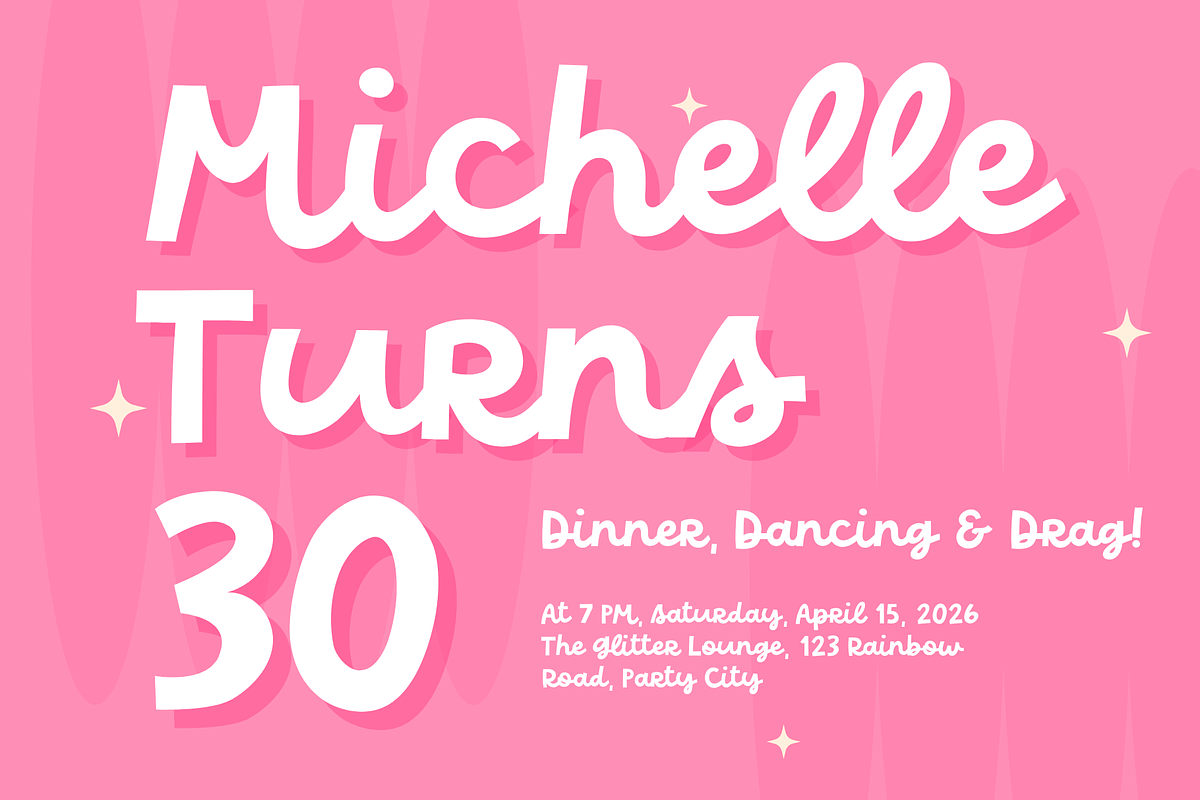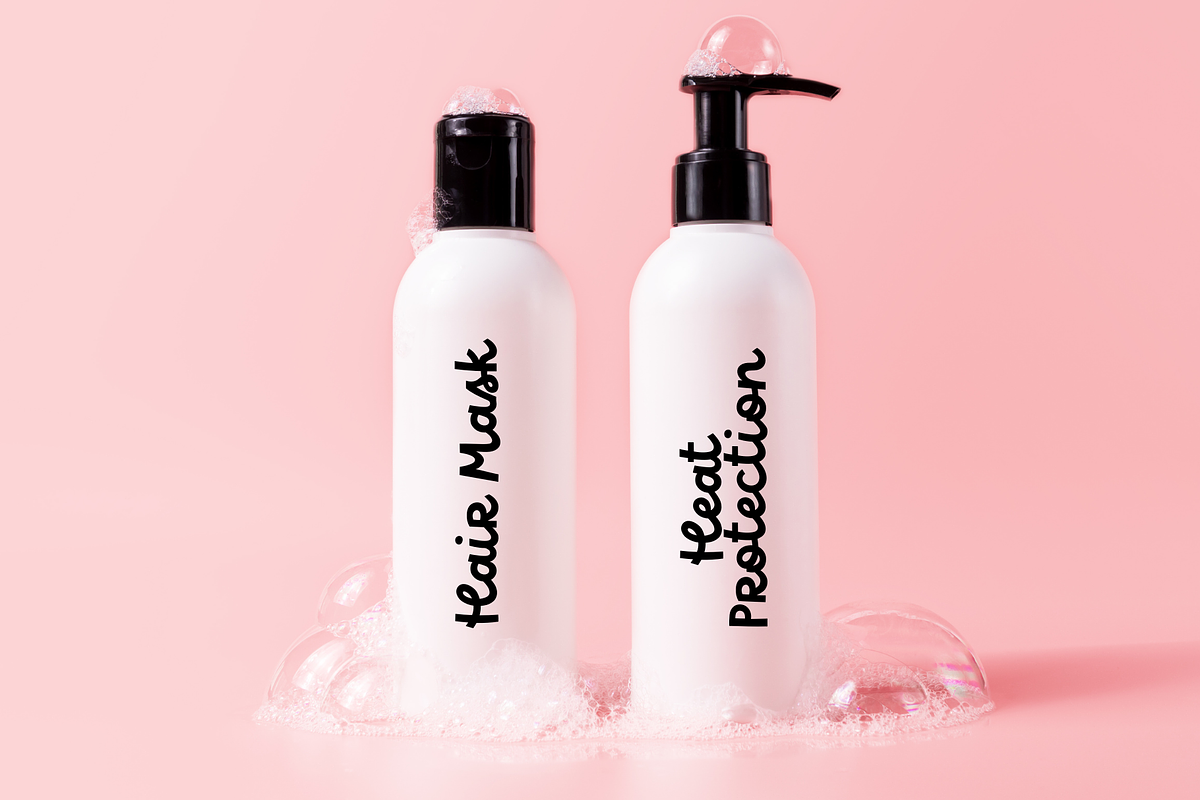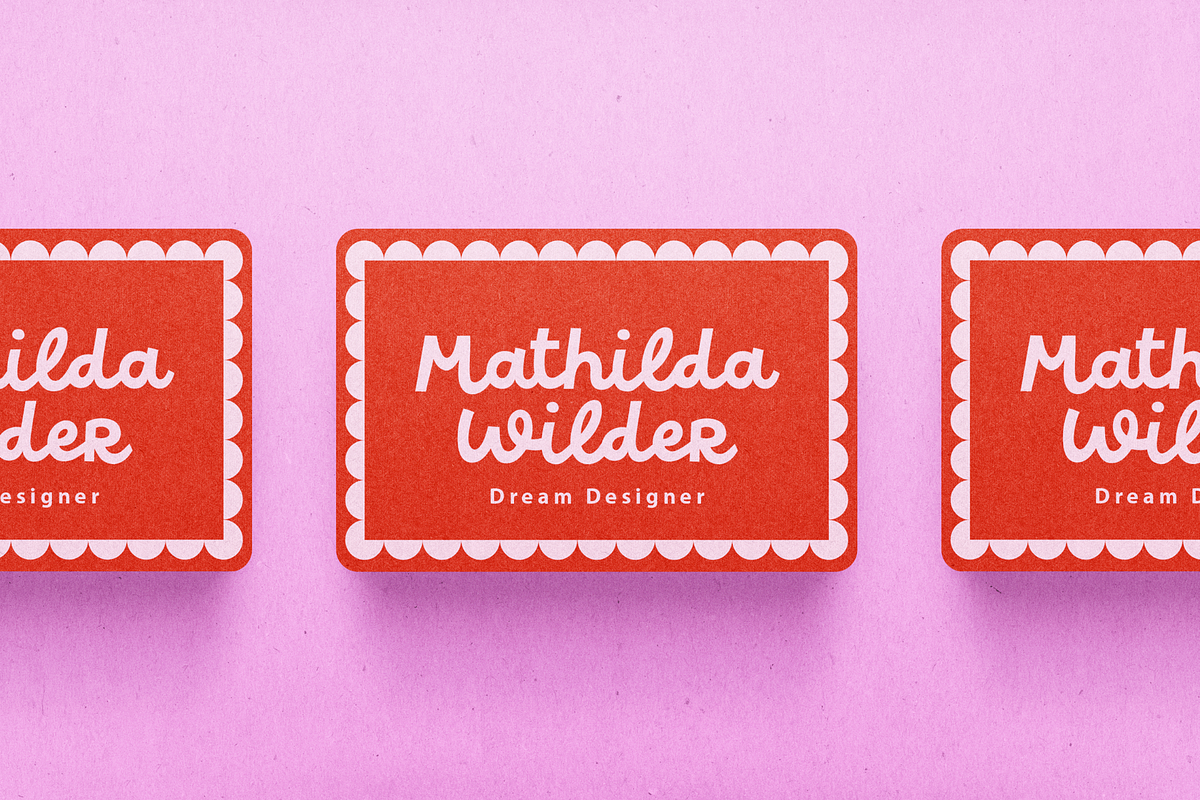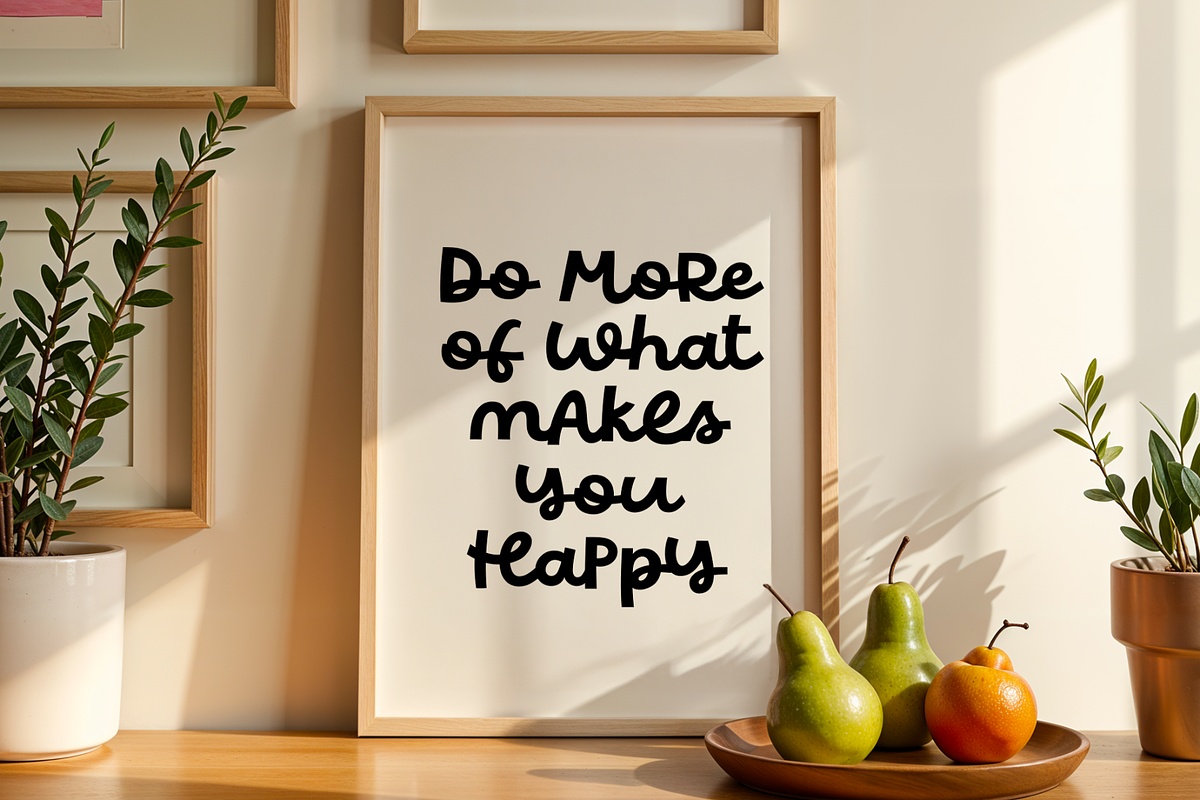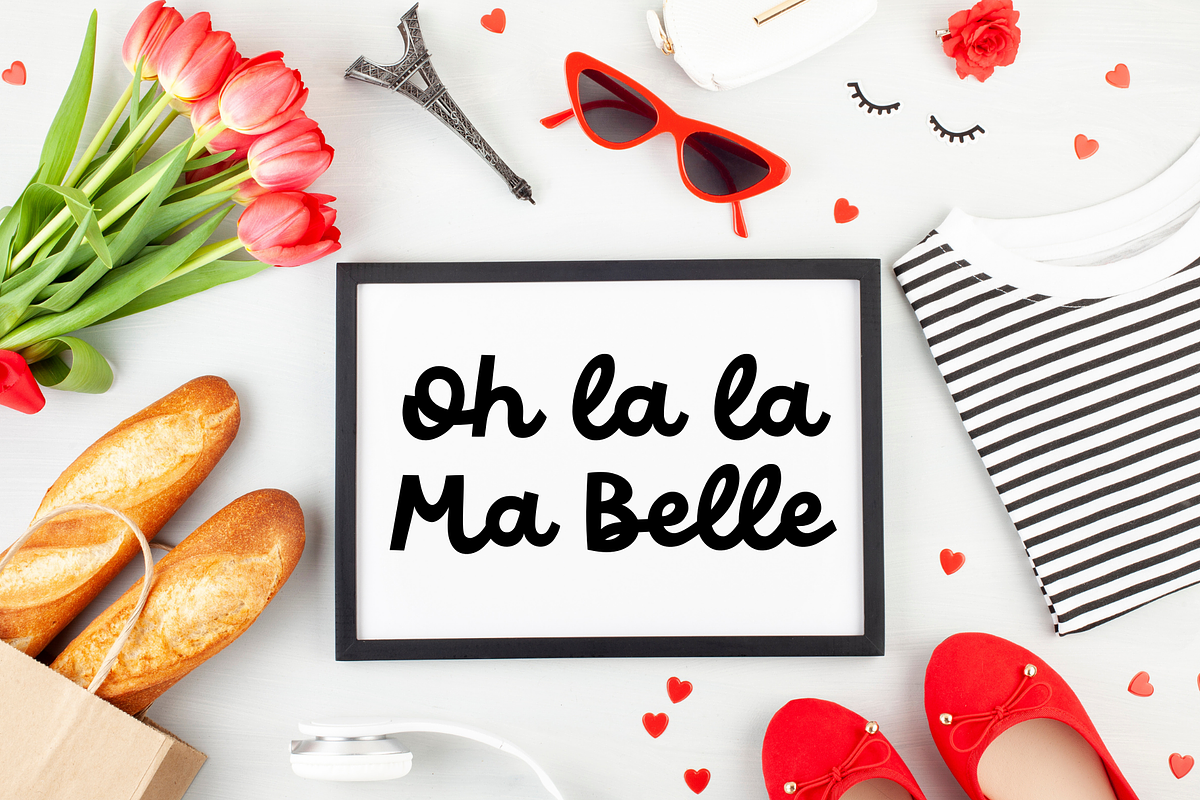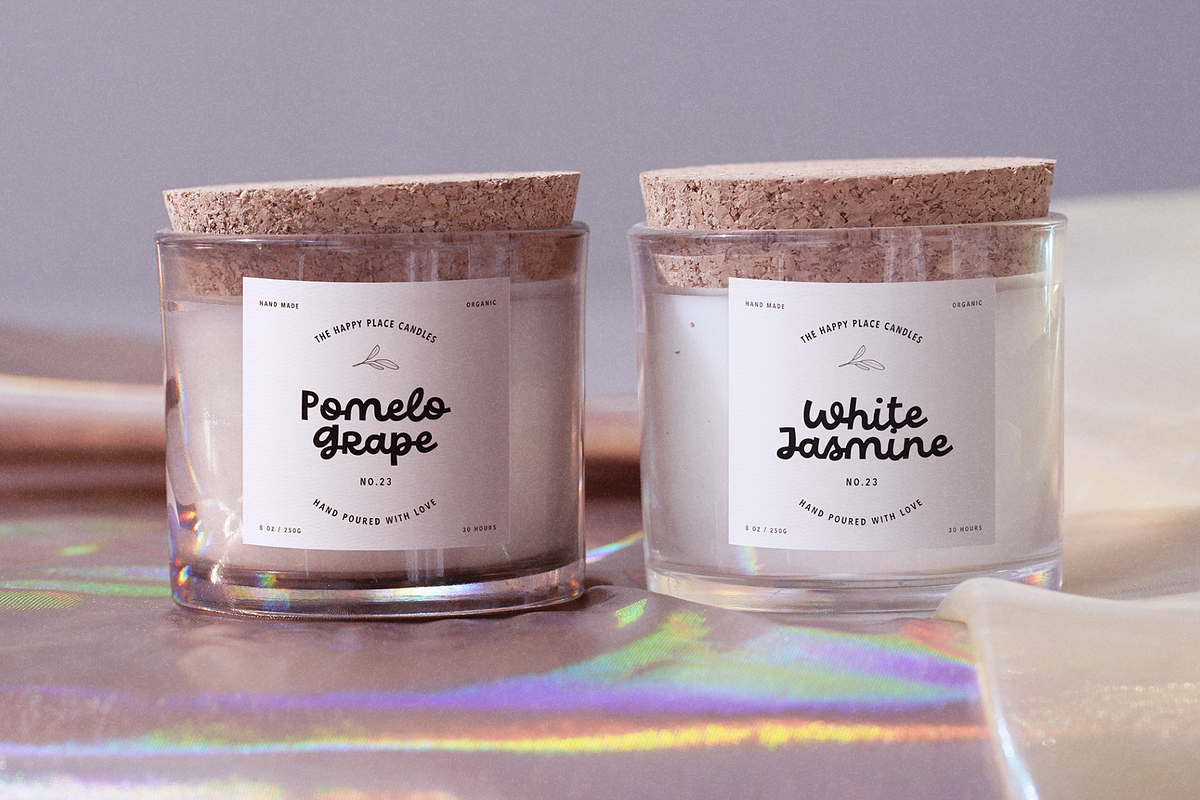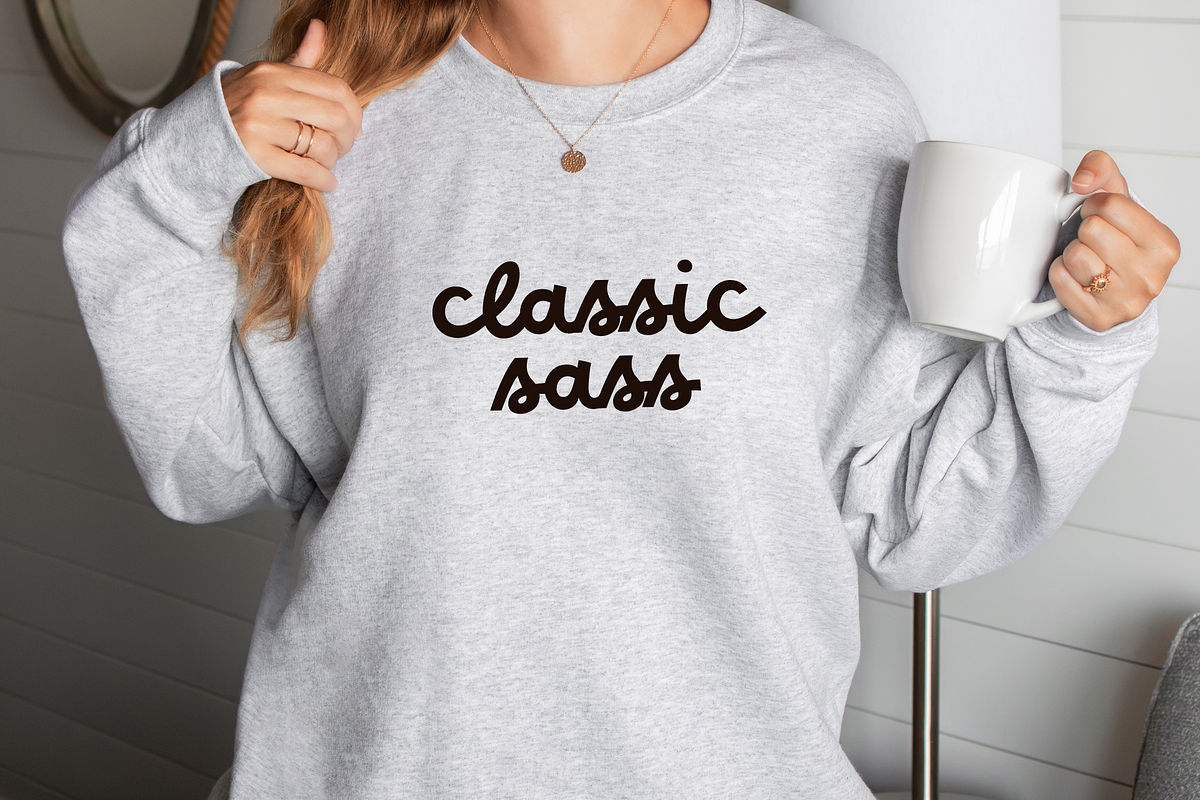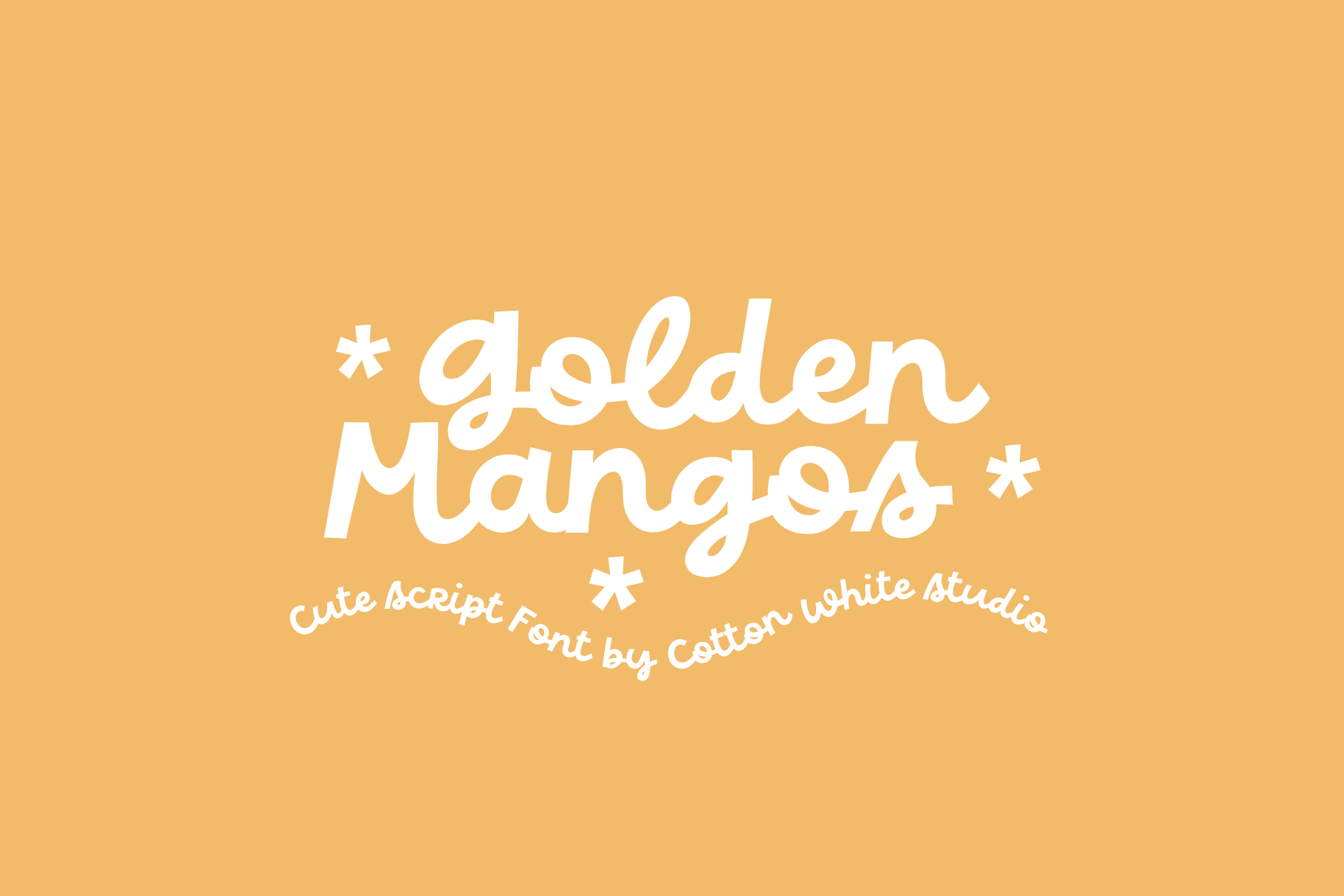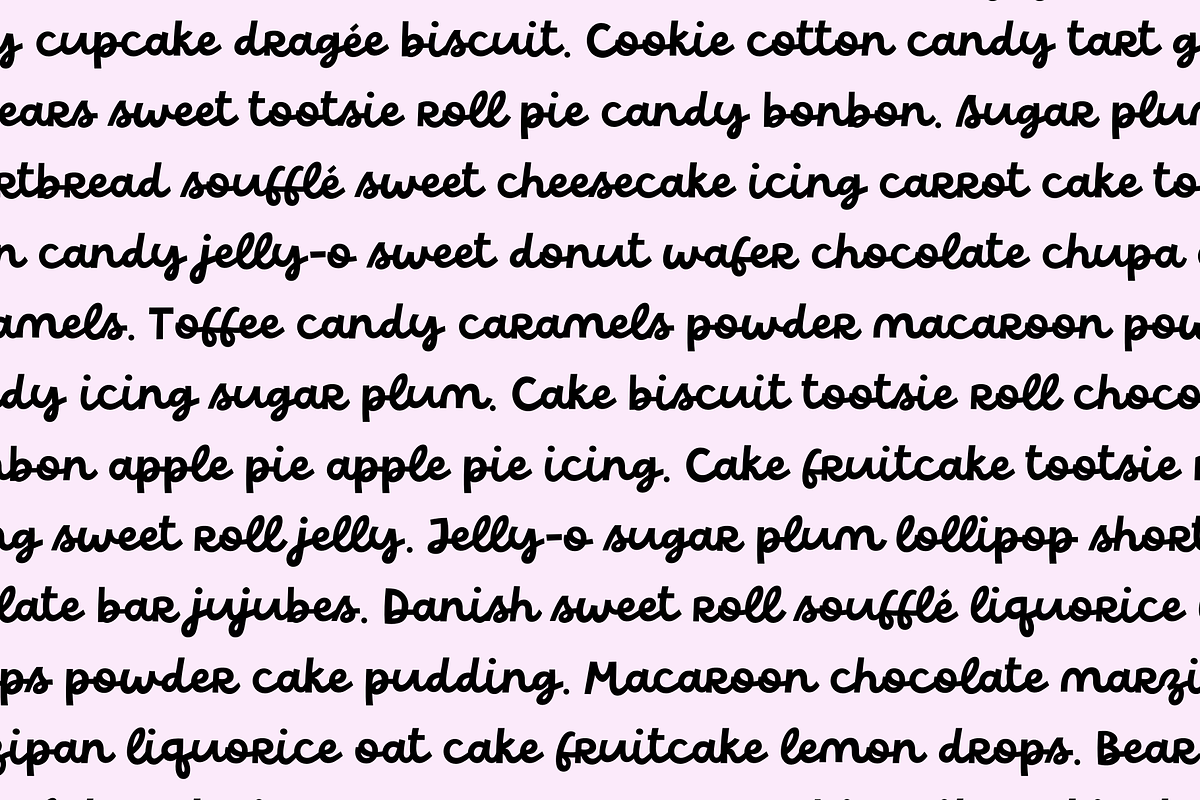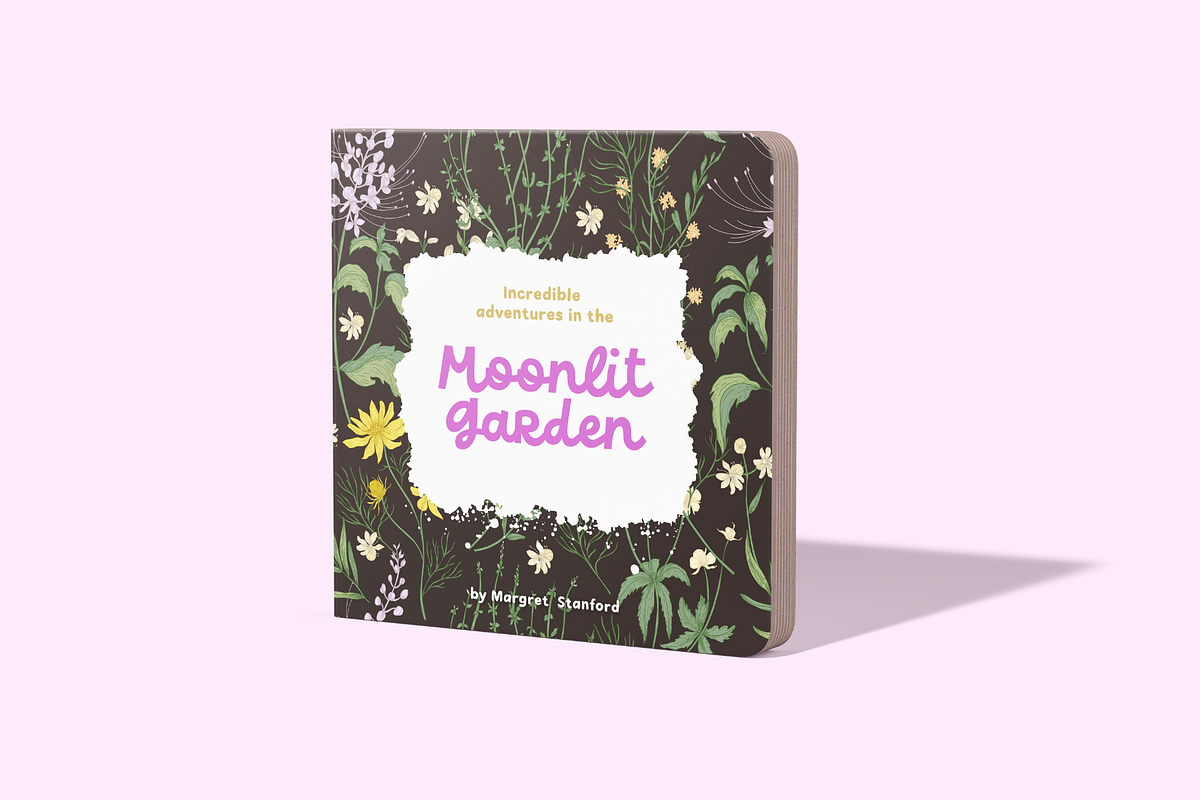
Golden Mangos Cute Script Font
Golden Mangos is a cute script font prefect for logos, branding, notebooks, journals, labels, stickers, blogs, quotes, greeting cards, tea towels, apparel, pillows, mugs, toys, posters, baby clothing, picture books and so much more... basically anything that requires a cute and fun look! 😍